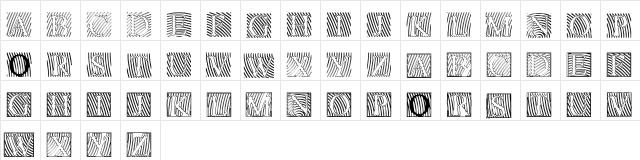
LowEngravedCapsHollow Regular
Design Context for LowEngravedCapsHollow Typeface
LowEngravedCapsHollow is built around its visual character rather than neutral utility — its distinctive forms are designed to make an impression at display sizes.
Font Pairing: Pair with a clean neutral sans-serif for body copy to let LowEngravedCapsHollow's character lead without overwhelming the composition.
Pro Tip: Treat LowEngravedCapsHollow as the centrepiece of your typographic hierarchy. One strong heading set in a decorative face can carry an entire layout.